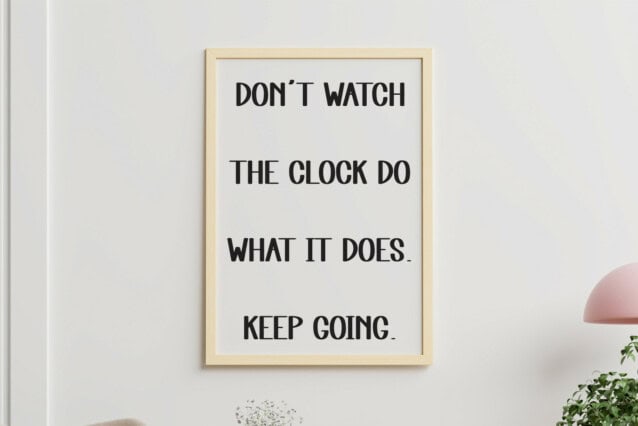
Fancy Comic Display Font
Fancy Comic Display Font is a fun and playful font for comic books and playful designs. It has bold, rounded letters with a touch of whimsy, perfect for making your words stand out with a lively and engaging look.